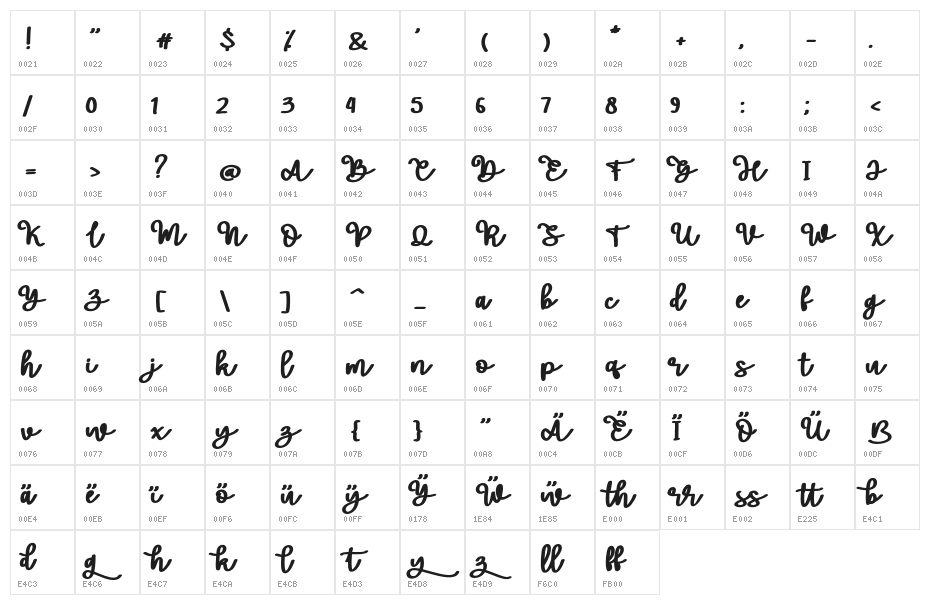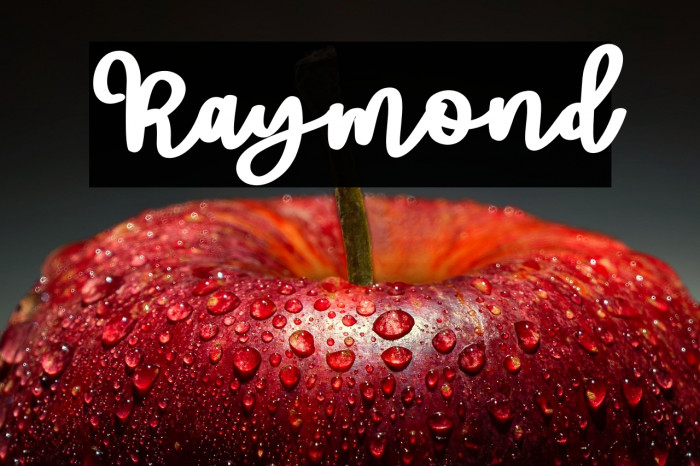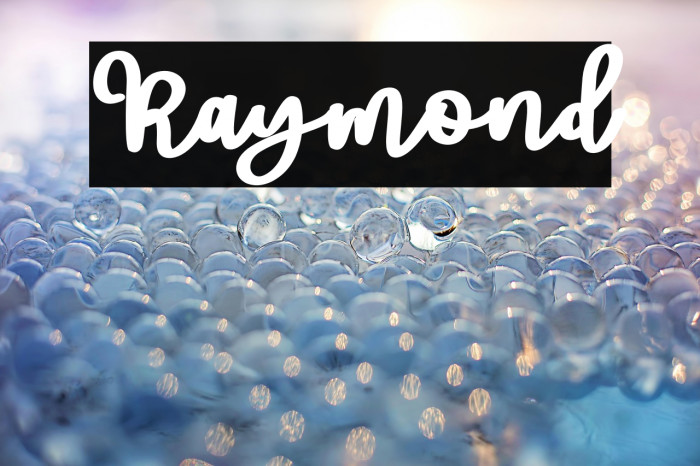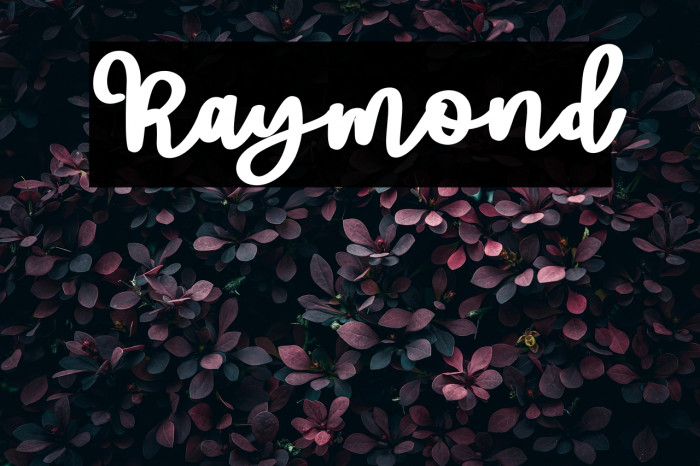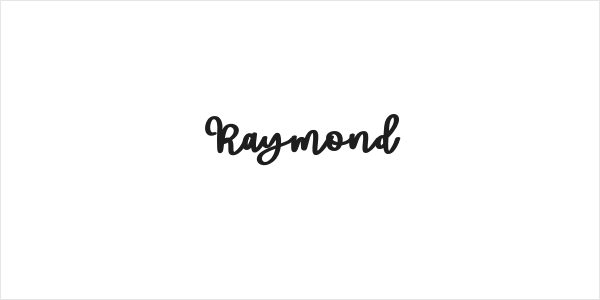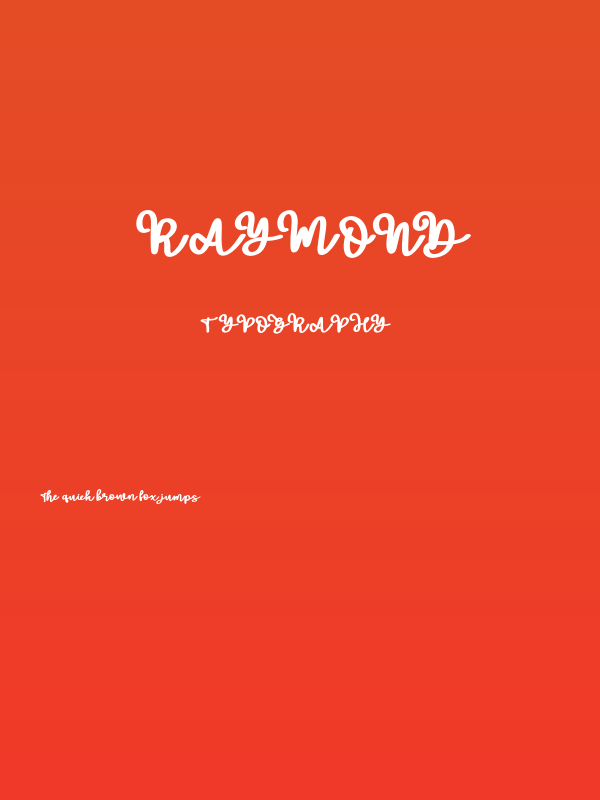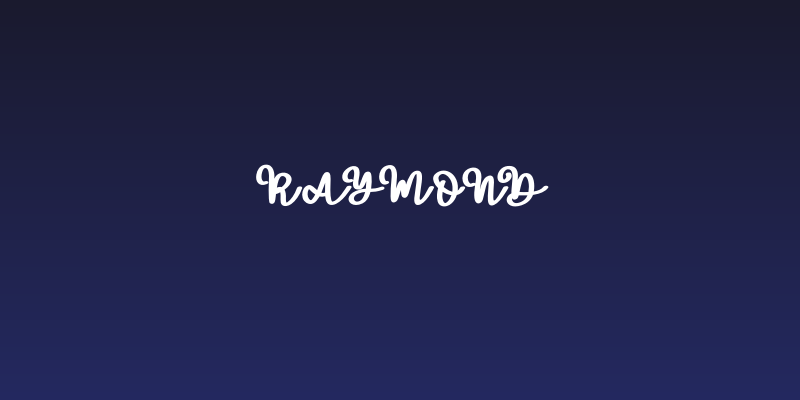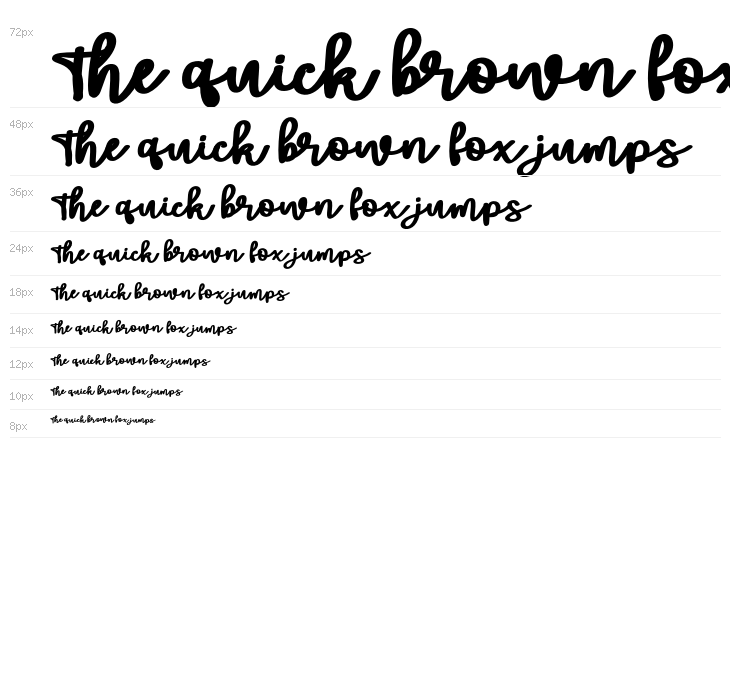
Raymond Font
Raymond Description
This font features a bold and flowing script style, characterized by its smooth, connected strokes and elegant curves. The uppercase letters exhibit a playful yet sophisticated flair, with unique loops and swirls that add a touch of whimsy. The lowercase letters maintain a consistent flow, enhancing readability while preserving the font's artistic nature. Numbers and special characters are designed to match the overall aesthetic, ensuring a cohesive look across all elements. This font's bold weight and decorative style make it ideal for projects that require a touch of elegance and creativity.
| Use Case | Logos, Headlines, Invitations |
| Proposed Projects | Ideal for wedding invitations, branding, greeting cards, and decorative signage. |